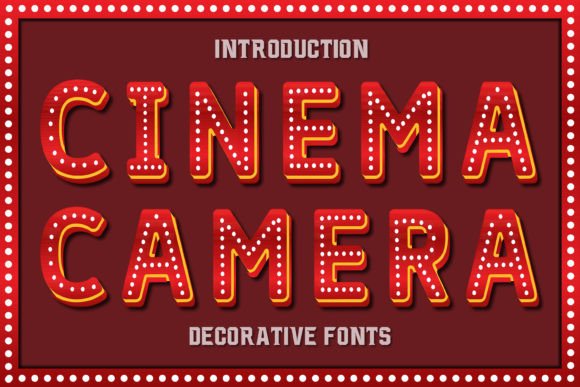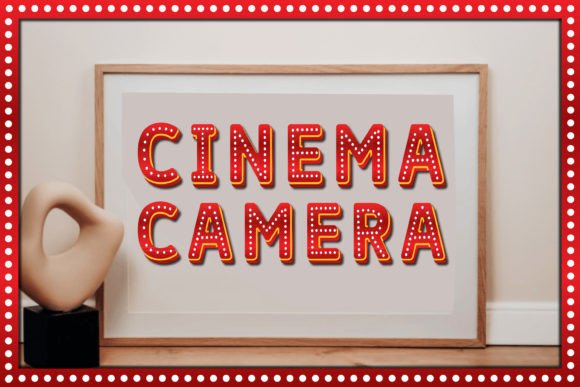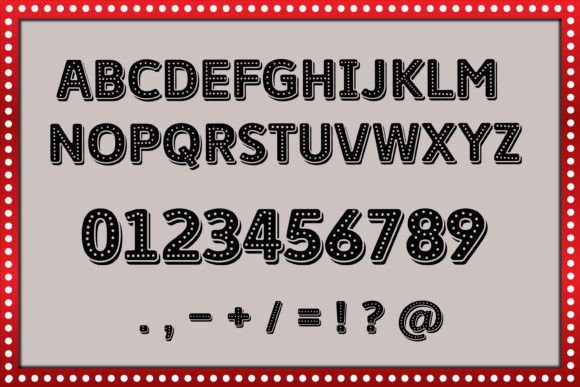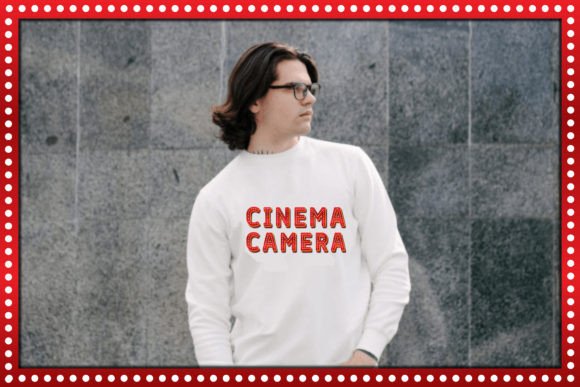
Cinema Camera Font
About the Cinema Camera Font
Welcome to the world of Cinema Camera Font, a typeface that will inspire your next great project. Introducing a vibrant splash to your creative projects, our color font embodies joy and whimsy that is bound to elevate your design endeavors. An absolute fit for branding initiatives, packaging designs, riveting logotypes, and gripping headlines, it also adds a sprinkle of charm to wedding invitations and similar creatives. Embrace and experience the transformative power of this uplifting font in your designs.